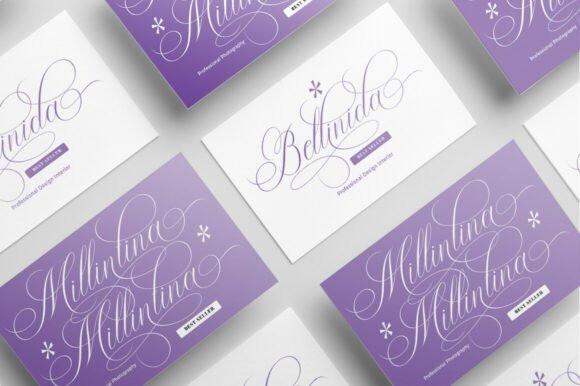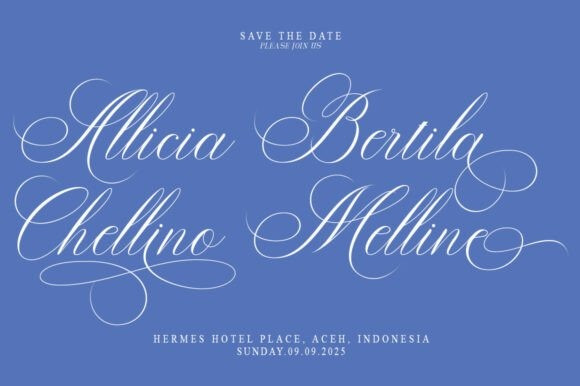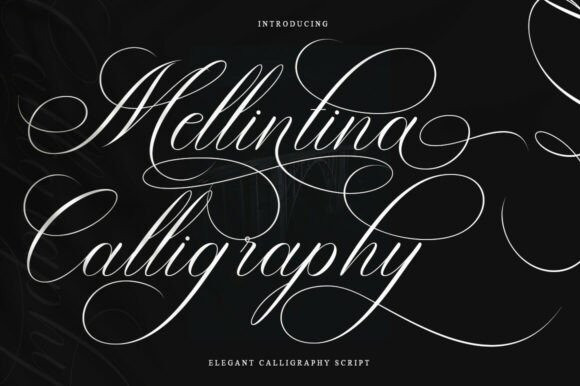
Melintina Calligraphy Font
Melintina Calligraphy Font, a luxurious script font that masterfully blends timeless elegance and contemporary flair. With its charming character variations, it expertly fuses traditional copperplate grace with a distinctly modern twist. Each detail meticulously crafted, Melintina Calligraphy offers a refreshingly stylish and sleek design. These striking curves and unique letter connections serve to create a visually stunning, feminine font that is effortlessly readable. Magnifying its versatility, Melinntina Calligraphy flawlessly suits a wide spectrum of sophisticated applications – from designing invites, labels, and restaurant menus to underlining the elegance of fashion and makeup. It elegantly decorates stationery, adorns tales spun in novels, stands out in glossy magazines, and breathes life into books. It adds charm to greetings and wedding cards, while illustrating the beauty in product packaging, and conveniently enhancing various advertising mediums. Become immersed in the timeless allure of Melintina Calligraphy.